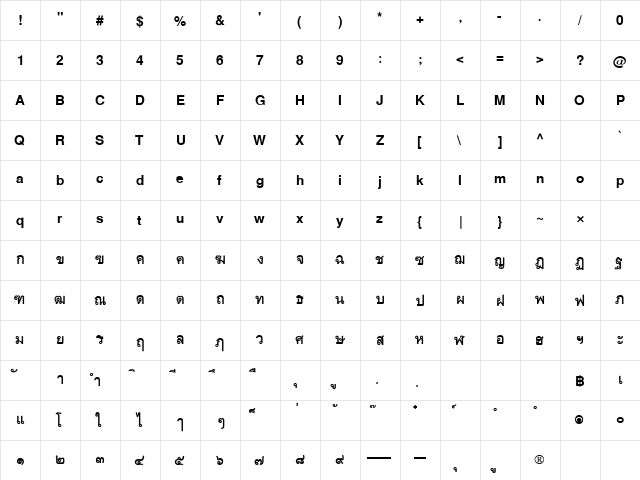
DBX ThaiText Bold Font Preview
DBX ThaiText Bold
DBX ThaiText Bold Font Details
Design Context for DBX ThaiText Typeface
DBX ThaiText takes a measured approach to typography — its balanced proportions and neutral character make it a reliable workhorse for both digital and print work. The heavy weight commands attention and anchors typographic hierarchies.